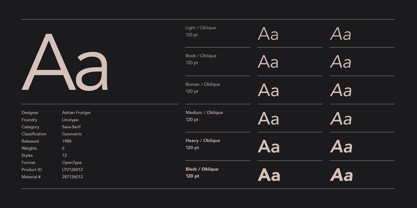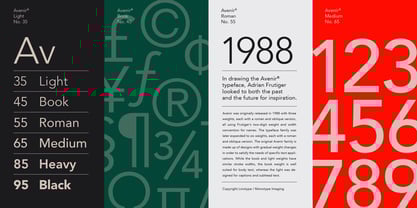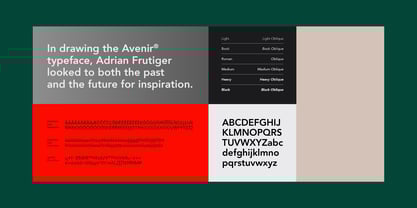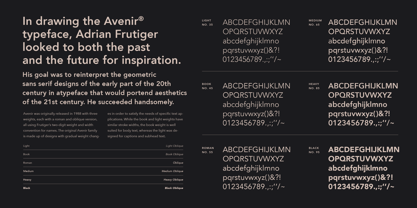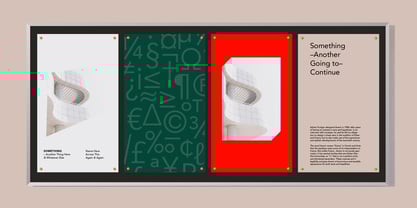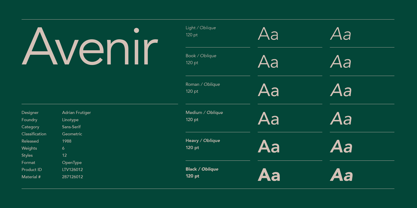
Avenir Font
The Avenir Font is perfect for contemporary corporate branding, sophisticated tech company identities, premium product packaging, modern architectural signage, elegant editorial layouts, professional presentation designs, clean web interfaces, luxury brand communications, refined advertising campaigns, and progressive business materials.
What makes the Avenir Font so exciting is its perfect balance of geometric harmony with humanist warmth that creates an ideal synthesis of technical precision and organic appeal for contemporary professional communications. This exceptional typeface features refined geometric construction, carefully balanced proportions, and subtle humanist touches that establish approachable sophistication perfect for brands seeking both professionalism and human connection. The font's contemporary personality and versatile elegance make it an outstanding choice for modern organizations seeking to communicate innovation, reliability, and sophisticated accessibility with enduring contemporary appeal.
The Avenir Font family includes comprehensive weight variations, featuring Light, Book, Roman, Medium, Heavy, and Black options, plus oblique styles and condensed versions. Each variation maintains the signature contemporary appeal while offering different levels of visual presence and typographic sophistication, providing designers with complete flexibility for creating refined brand hierarchies and sophisticated communication systems that balance professionalism with approachability.
The sophisticated geometric engineering of Avenir Font demonstrates expert contemporary typography craftsmanship, with each character optimized for perfect optical balance, exceptional legibility, and visual harmony across all modern applications. The font's comprehensive character set includes international language support, professional punctuation, corporate symbols, and advanced typographic features, ensuring seamless integration into global business operations and sophisticated professional workflows.
Expertly optimized for both digital and print contemporary applications, this remarkable font maintains perfect clarity and sophisticated presence across all media formats and business contexts. From large-scale corporate installations to detailed business documents, Avenir Font performs exceptionally while preserving its distinctive contemporary character and professional sophistication.